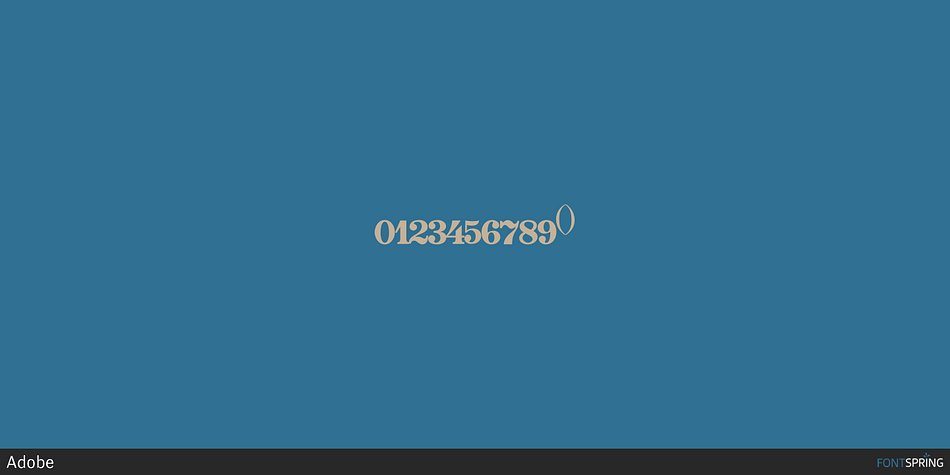
Sonata® Std is a dingbat font published by Adobe.
Designed for Adobe Systems in 1985 by Cleo Huggins, Sonata consists of 170 music-notation symbols for use in high-quality music publishing. When used with appropriate music setting software applications, Sonata produces magnificent printed music.